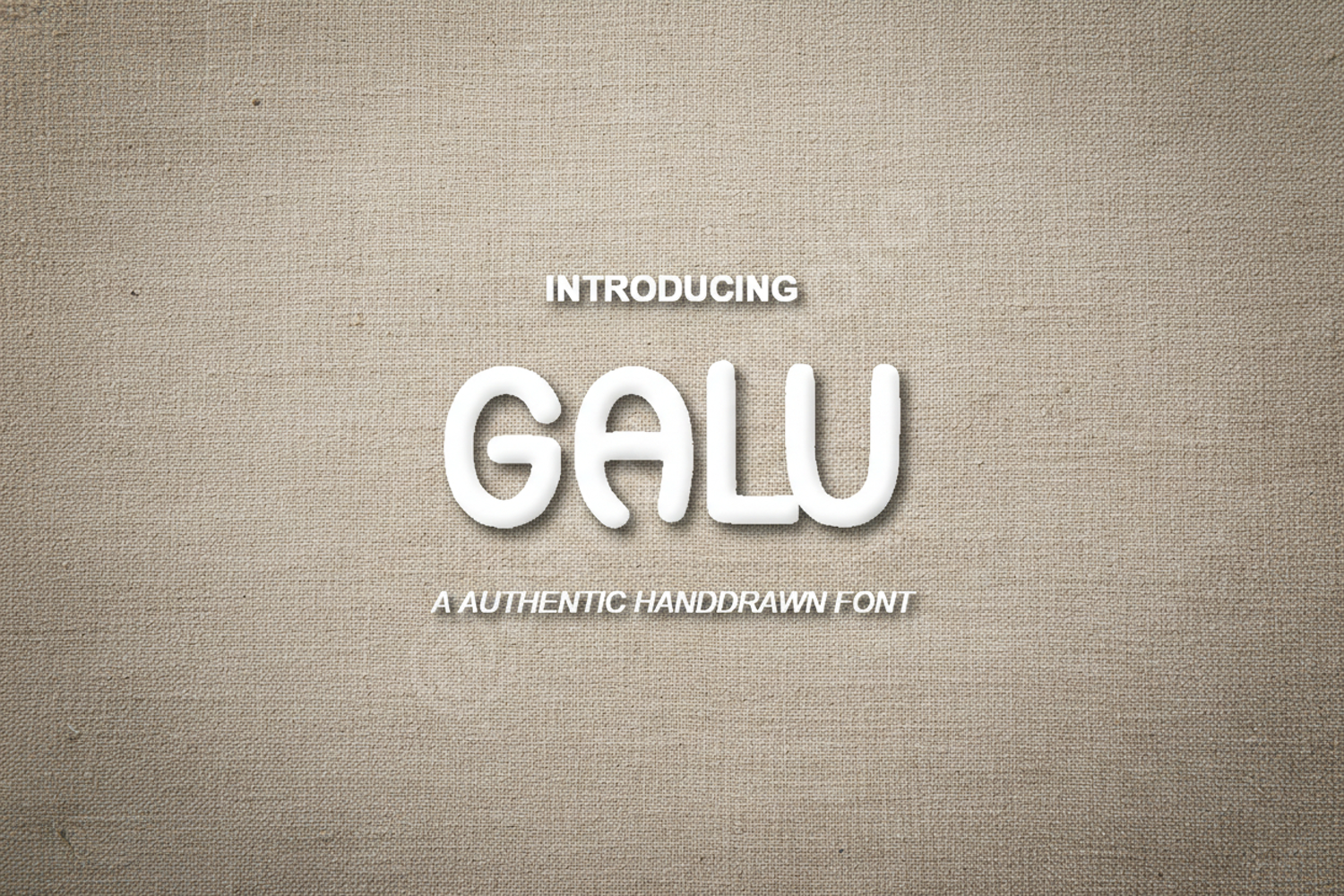
Galu - Premium Modern Geometric Sans Serif
Galu
Elevate your creative projects with Galu, a premium modern geometric sans serif font designed for clarity and impact. Galu combines clean lines with a sophisticated aesthetic, making it a versatile choice for designers seeking a balance between contemporary style and timeless readability. Whether you are building a brand identity or designing a high-end publication, Galu provides the professional edge your work deserves.
- Comprehensive Multilingual Support
- Standard Ligatures and Alternates
- Branding and Identity: Perfect for creating memorable logos and cohesive brand systems.
- Editorial Design: Ideal for magazine layouts, bold headlines, and clean body text.
- Digital Marketing: Enhances social media graphics, website headers, and digital advertisements.
- Packaging Design: Adds a clean, high-end look to product labels and shipping boxes.
- Corporate Communications: Professional enough for pitch decks, presentations, and annual reports.